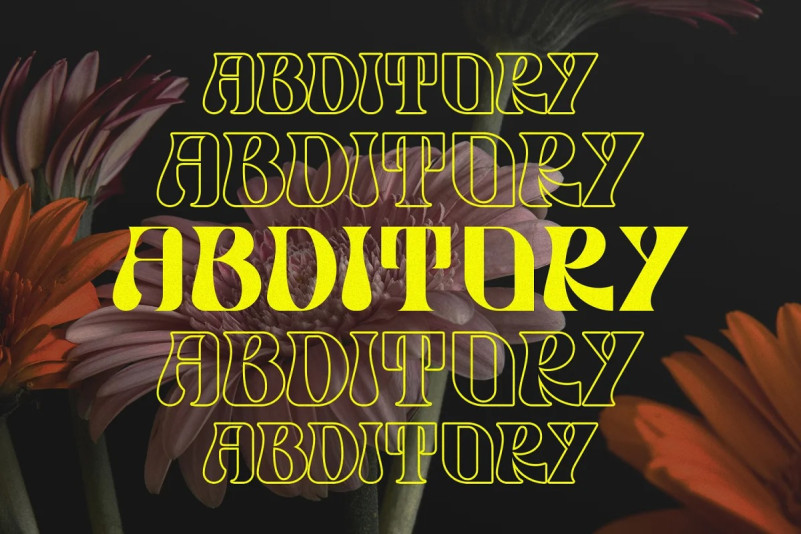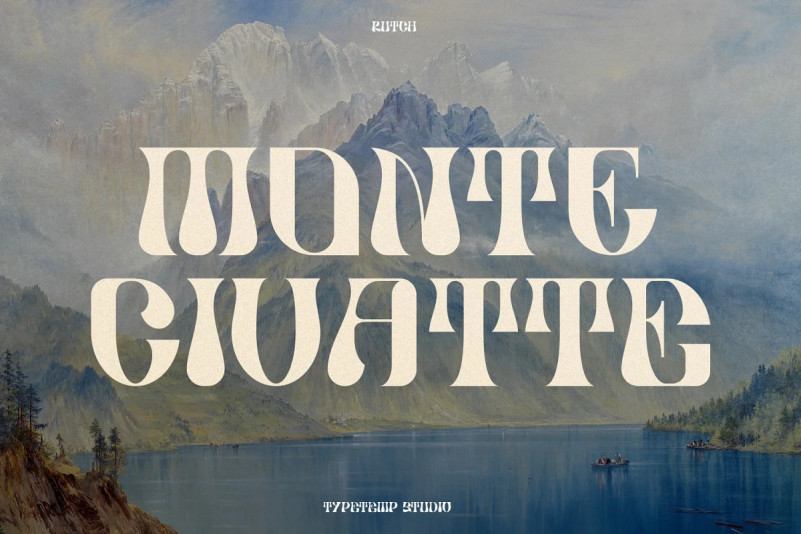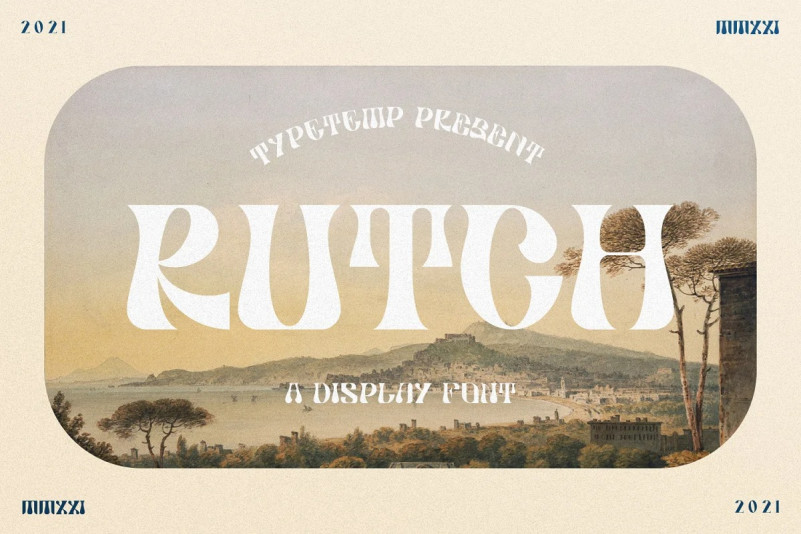
Rutch Font
RUTCH Display Font  is complemented by some of the same alternatives made with love. Access your OpenType features to access the large selection of alternate letters and ligatures, select the letters you like from the large variety to get the display font you like. Perfect for editorial projects, Logo design, Clothing Branding, product packaging, magazine headers, or simply as a stylish text overlay to any background image.